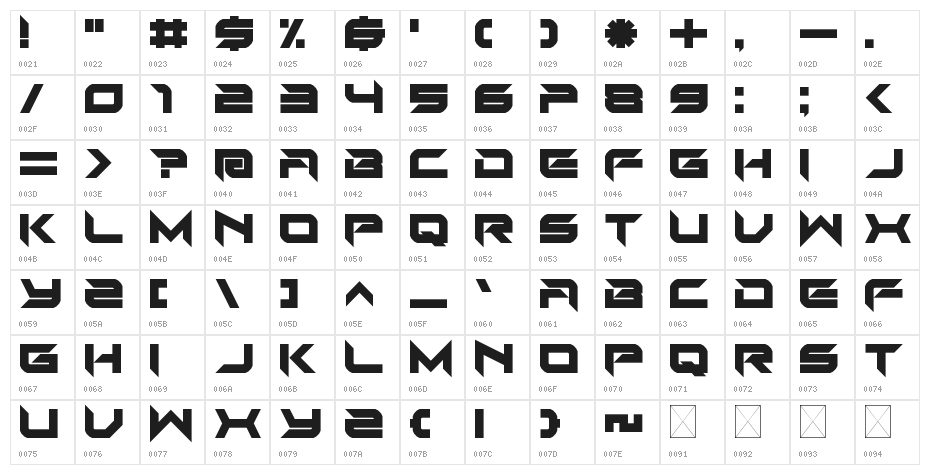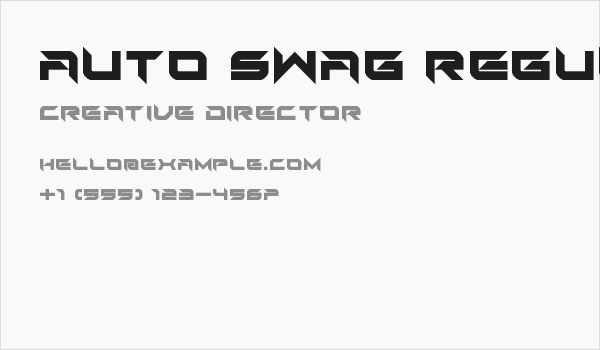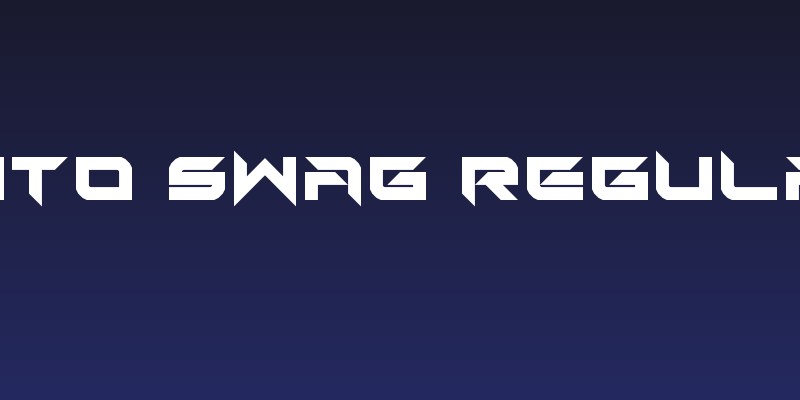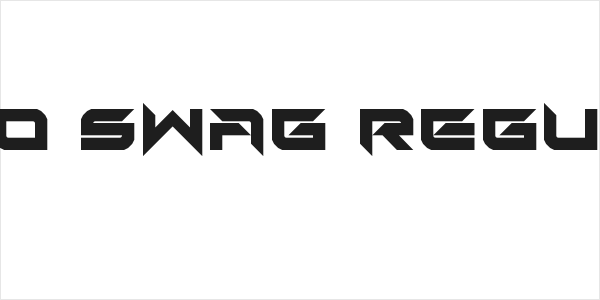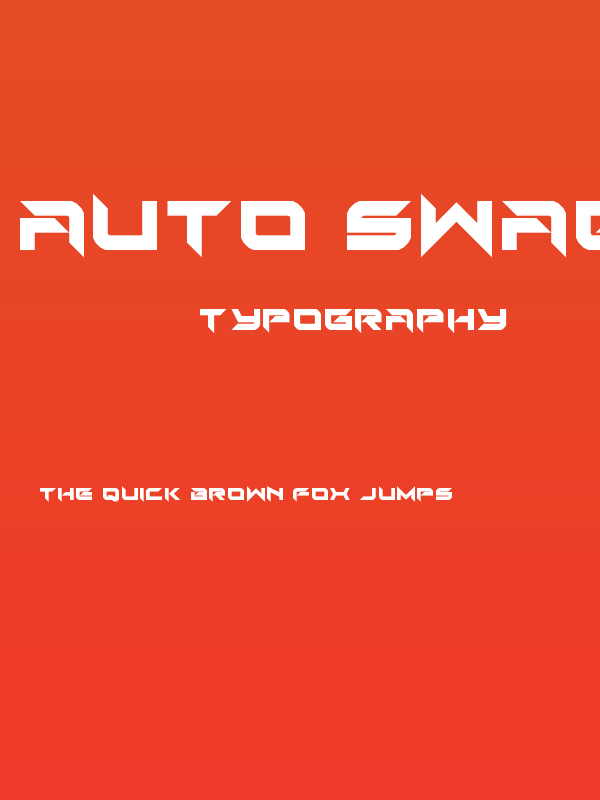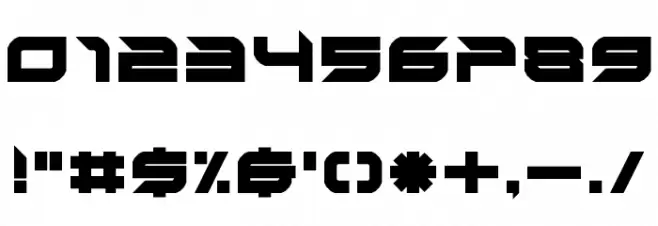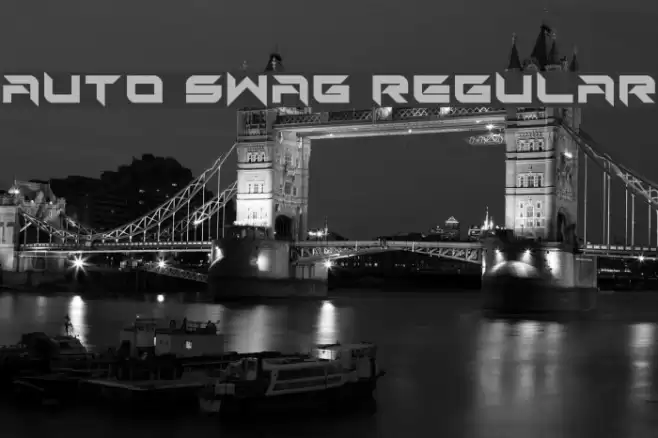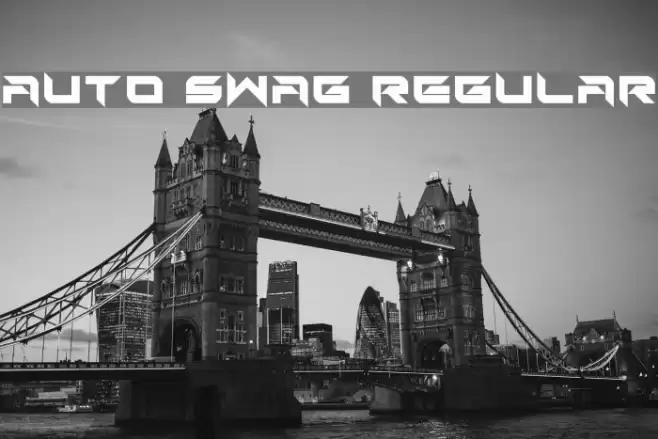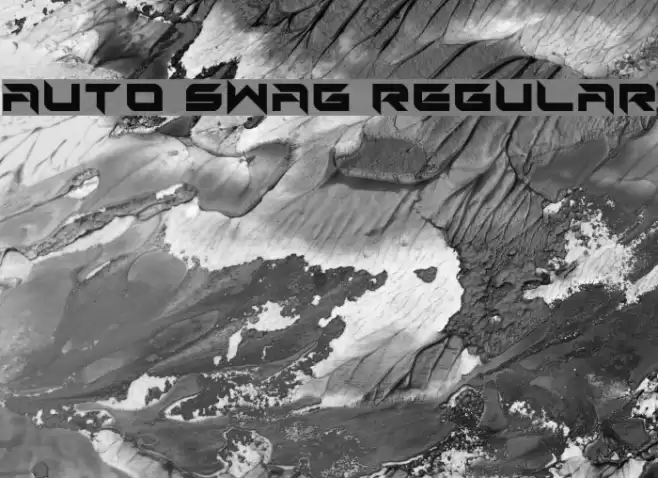
Auto Swag Regular Font
Auto Swag Regular Description
This font features a bold, futuristic design with sharp angles and geometric shapes. Each character is crafted with precision, creating a sense of movement and energy. The uppercase letters are particularly striking, with their angular forms and unique cuts. The lowercase letters maintain the same dynamic style, ensuring consistency throughout. Numbers and special characters are equally bold and distinctive, making this font versatile for various applications. Its strong presence and modern aesthetic make it suitable for projects that require a bold statement.
| Proposed Projects | Ideal for technology branding, video game titles, sci-fi posters, and modern logos. |